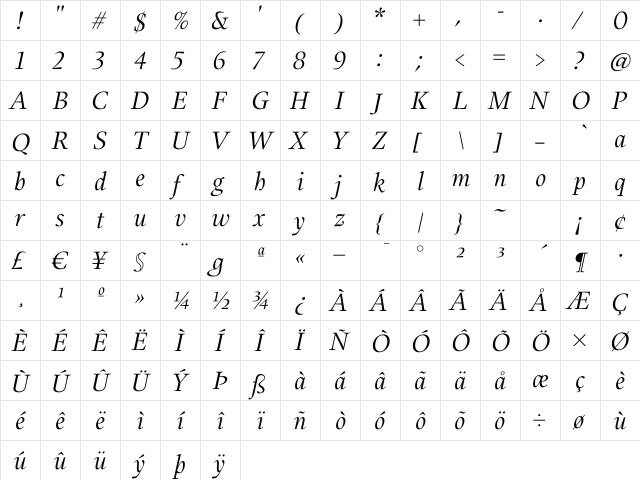
Alias UnionRegular Italic Regular Font Preview
Alias UnionRegular Italic Regular
Alias UnionRegular Italic Regular Font Details
Design Context for Alias UnionRegular Italic Typeface
Alias UnionRegular Italic takes a measured approach to typography — its balanced proportions and neutral character make it a reliable workhorse for both digital and print work. Its italic angle brings a sense of urgency and motion to the letterforms.